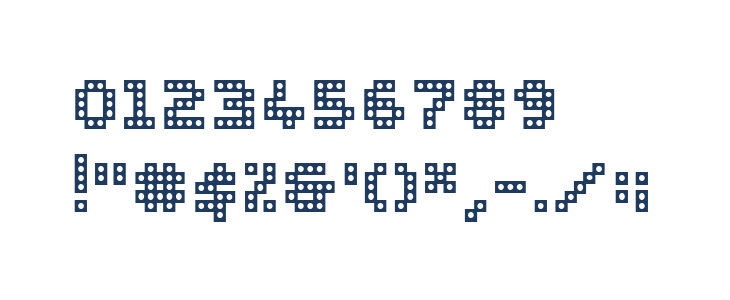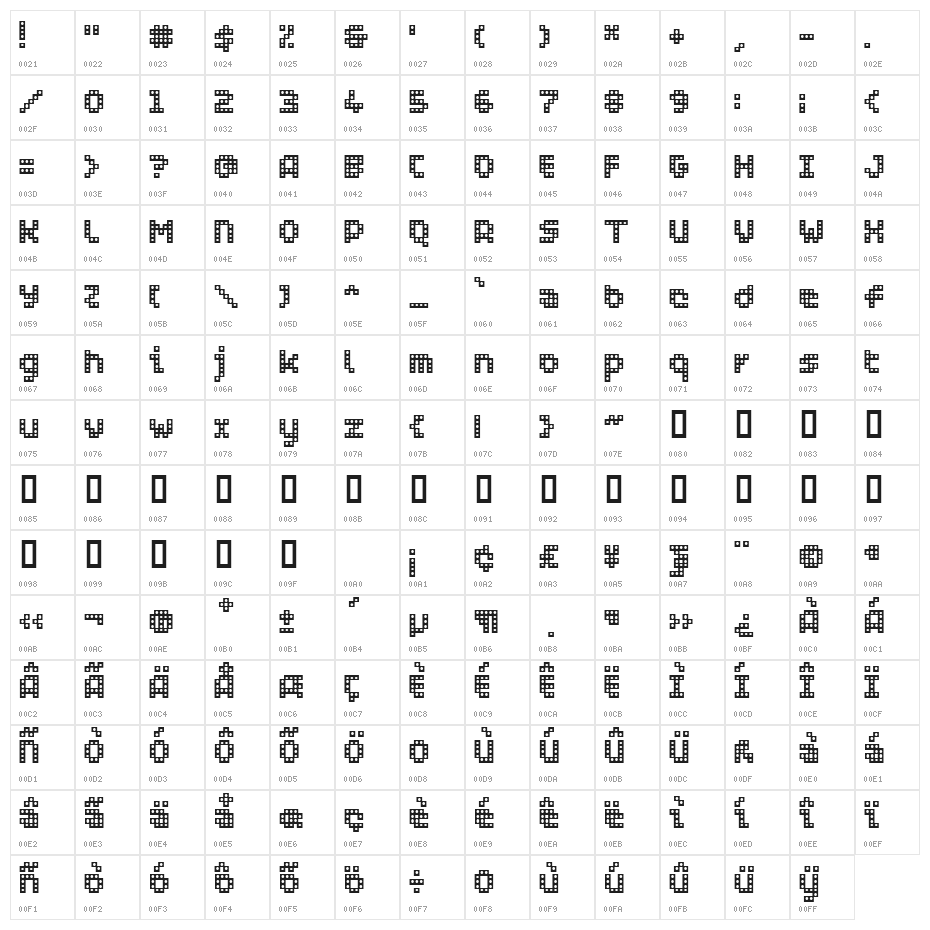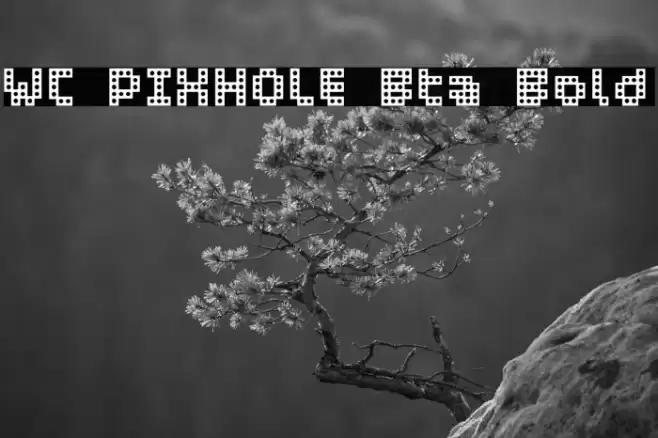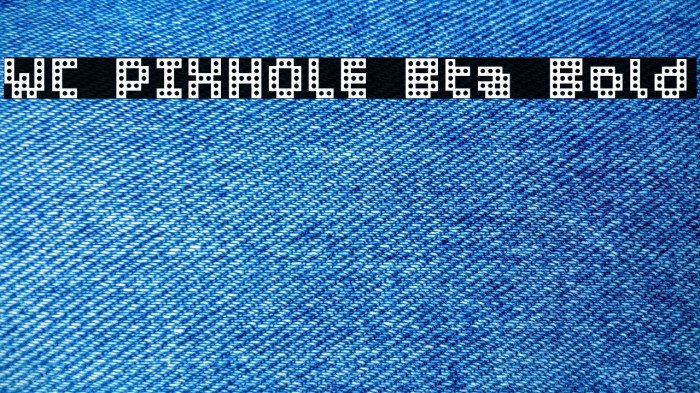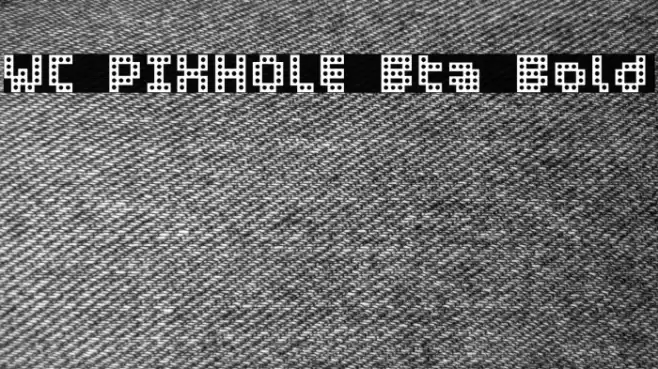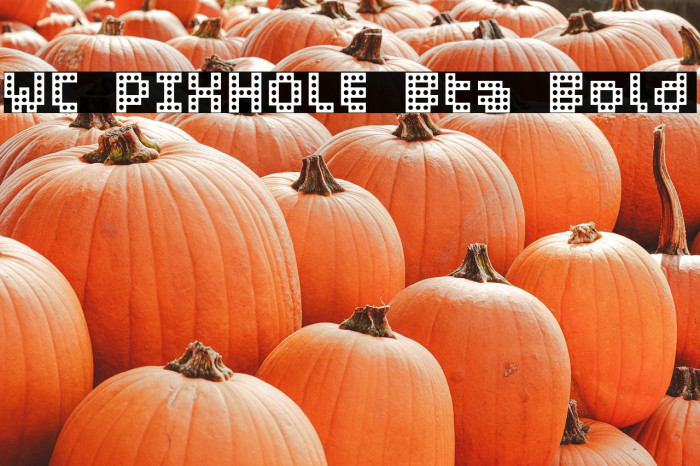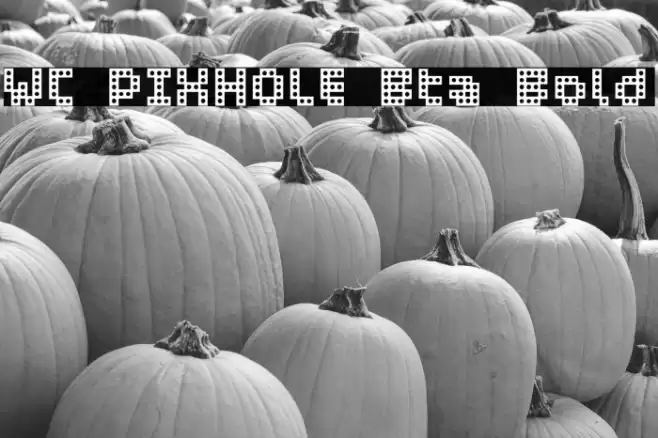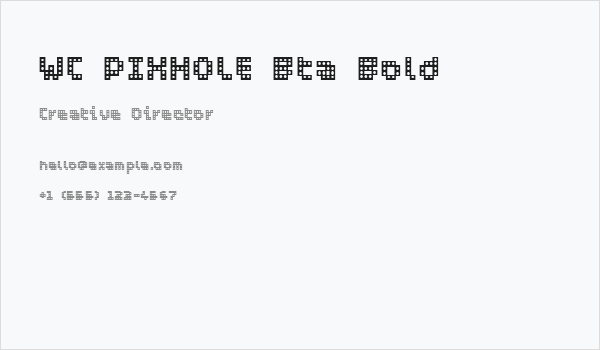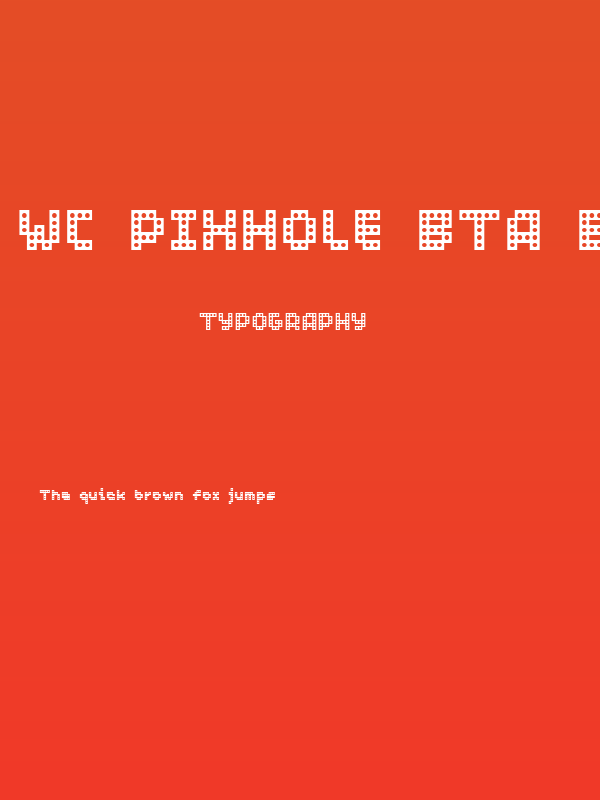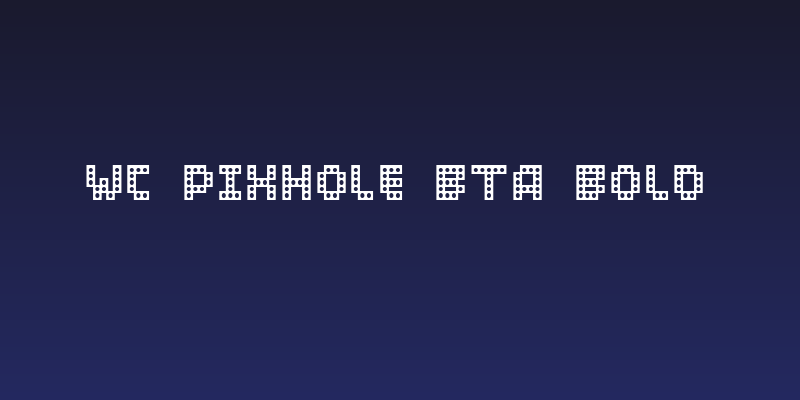
WC PIXHOLE Bta Bold Font
WC PIXHOLE Bta Bold Description
This font features a unique and playful design, characterized by its bold, pixelated style with circular cutouts within each character. The geometric structure gives it a digital, retro appearance reminiscent of early computer graphics or arcade games. Each letter and number is constructed with a grid-like precision, creating a consistent and cohesive look across the entire set. The inclusion of circular holes adds a distinctive texture, making it stand out as a decorative typeface. This font is ideal for projects that require a fun, tech-inspired aesthetic.
Overall StyleRetro, Digital
Proposed ProjectsIdeal for video game graphics, tech-themed posters, digital art projects, and retro-style branding.